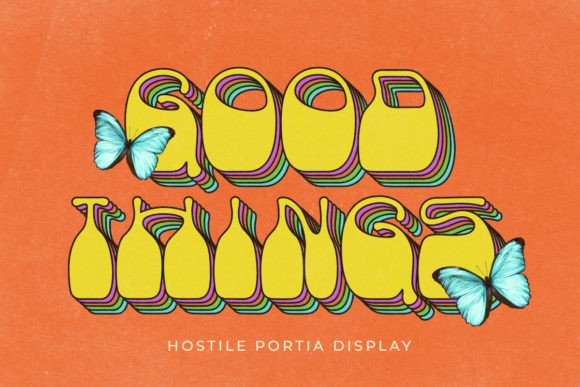
Introducing Hostile Portia Font: Elevate Your Designs with a Unique Reverse Display Font
In the world of typography, fonts play a crucial role in conveying messages, expressing emotions, and creating visual identities. For designers, artists, and marketers, finding the perfect font can be a daunting task. However, if you’re looking for a font that can add a touch of elegance and sophistication to your designs, look no further than Hostile Portia Font. In this article, we’ll explore the features, benefits, and uses of Hostile Portia, a reverse display font that is sure to become an incredible asset to your font library.
What is Hostile Portia Font?
Hostile Portia Font is a unique and stylish reverse display font designed to add a touch of aesthetic appeal to your designs. With its distinctive reverse style, this font is perfect for creating eye-catching headlines, titles, and captions that demand attention. Whether you’re working on a branding project, advertising campaign, or social media content, Hostile Portia Font is sure to make your text stand out from the crowd.
Key Features of Hostile Portia Font
- Reverse Display Style: Hostile Portia Font features a unique reverse display style that sets it apart from traditional fonts. Its distinctive design makes it perfect for creating eye-catching headlines and titles.
- Aesthetic Looks: This font boasts an elegant and sophisticated design that adds a touch of refinement to any creation.
- Versatility: Hostile Portia Font can be used for a wide range of design projects, from branding and advertising to social media and packaging.
- Ease of Use: This font is easy to read and works well in both digital and print formats.
Benefits of Using Hostile Portia Font
So, why should you choose Hostile Portia Font for your design projects? Here are just a few benefits of using this incredible font:
- Adds Visual Interest: Hostile Portia Font adds a touch of visual interest to your designs, making them more engaging and attention-grabbing.
- Enhances Brand Identity: This font can help you create a unique and memorable brand identity that sets you apart from your competitors.
- Increases Readability: Despite its unique design, Hostile Portia Font is easy to read, making it perfect for use in body text and captions.
- Flexible and Adaptable: This font can be used in a variety of design contexts, from digital media to print materials.
How to Use Hostile Portia Font
Using Hostile Portia Font is easy. Here are a few tips to get you started:
- Headlines and Titles: Use Hostile Portia Font to create eye-catching headlines and titles that demand attention.
- Branding and Logo Design: This font is perfect for creating unique and memorable brand identities.
- Social Media Graphics: Use Hostile Portia Font to add a touch of elegance and sophistication to your social media graphics.
- Packaging Design: This font is also great for packaging design, adding a touch of visual interest to product labels and packaging materials.
Tips for Pairing Hostile Portia Font with Other Fonts
Pairing Hostile Portia Font with other fonts can create a unique and visually appealing typography scheme. Here are a few tips for pairing this font with other fonts:
- Contrast with Sans-Serif Fonts: Pair Hostile Portia Font with sans-serif fonts, such as Arial or Helvetica, to create a striking contrast.
- Match with Script Fonts: This font also pairs well with script fonts, such as Pacifico or Great Vibes, to create a elegant and sophisticated look.
- Combine with Serif Fonts: Pairing Hostile Portia Font with serif fonts, such as Times New Roman or Georgia, can create a classic and timeless look.
In conclusion, Hostile Portia Font is a unique and versatile reverse display font that can elevate any design project. With its aesthetic looks, ease of use, and flexibility, this font is sure to become an incredible asset to your font library. Whether you’re a designer, artist, or marketer, Hostile Portia Font is a great choice for adding a touch of elegance and sophistication to your designs.